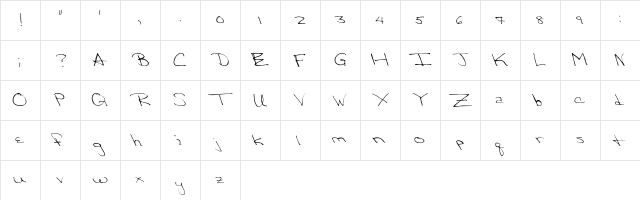
Victorias-Secret Regular
Design Context for Victorias-Secret Typeface
Victorias-Secret is a composed and adaptable typeface that performs quietly and consistently across a wide range of design contexts.